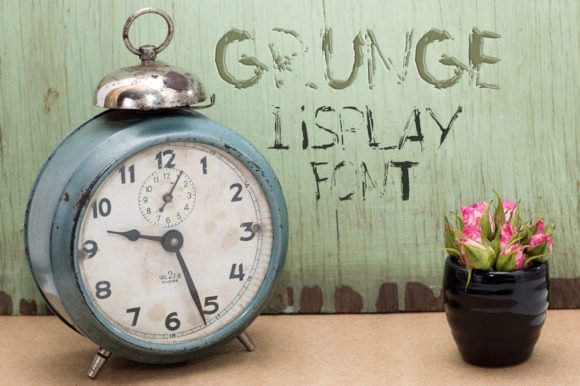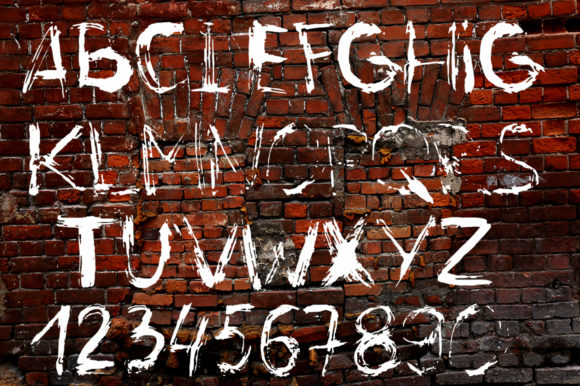
Unleashing Your Inner Rebel: The Power of Grunge Font
Have you ever been stuck in a design rut, desperately searching for that perfect font to add some edge to your project? Maybe you’ve been brainstorming ideas for a new album cover, or perhaps you’re trying to create a bold logo for your craft business. Whatever your creative endeavor, I’m here to tell you that you’ve been missing out on a game-changer: the Grunge Font.
This rough-around-the-edges display font is more than just a trend – it’s a versatile tool that can add depth and character to even the most mundane designs. Whether you’re looking to create a distressed effect or simply add some visual interest to your letterheads, Grunge Font is the perfect addition to your design arsenal.
For designers, the Grunge Font offers endless possibilities for creative expression. Its unique texture and bold look make it an ideal choice for titles, stationery, and any project where you want to make a statement.
Grunge Font Key Features
- Unique Characteristics: Grunge Font features a distressed, worn look with rough edges and imperfections, giving it a vintage, grungy feel.
- Font Style: It is a sans-serif font with a bold, rugged aesthetic, making it ideal for use in posters, flyers, and other promotional materials.
Grunge Font Review
When it comes to fonts with a bit of edge and character, the Grunge Font is definitely worth checking out. Here are a few things that stand out to me: ✨
- The distressed texture and worn look add a lot of depth to any design.
- The bold and chunky feel makes it perfect for headlines and titles.
- It’s available in a variety of styles, including regular, bold, and italic.
- The font can be a bit overwhelming if used too much or in the wrong context.
- The distressed texture can make it difficult to read for some users.
- It may not be the best choice for designs that require a lot of fine details or precision.
Overall, I think the Grunge Font is a great addition to any designer’s toolkit. It’s perfect for designs that need a bit of attitude and edge, but be sure to use it thoughtfully and in moderation. With a little creativity, this font can add a lot of character to your designs.
Use the Grunge Font to add a distressed or vintage feel to your designs.
It’s perfect for creating posters, flyers, and other promotional materials.